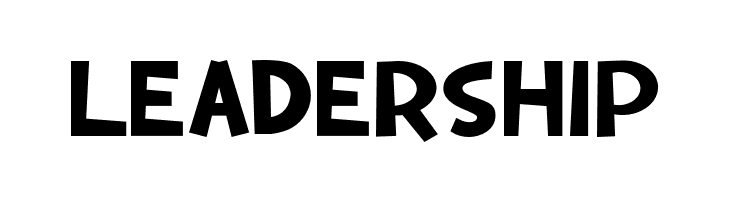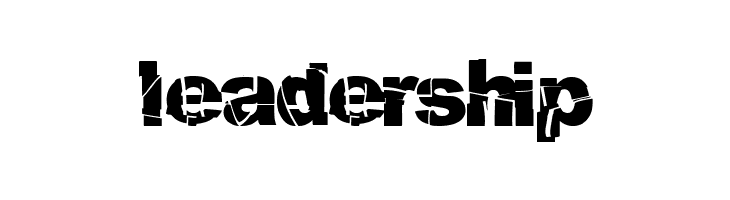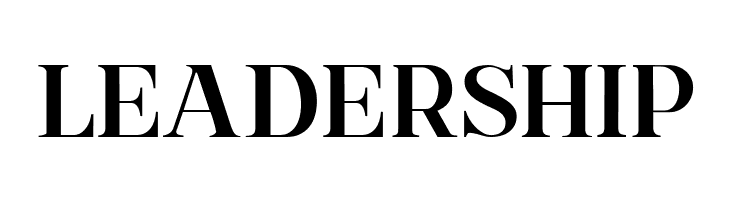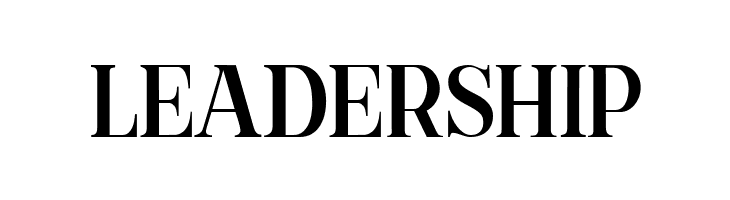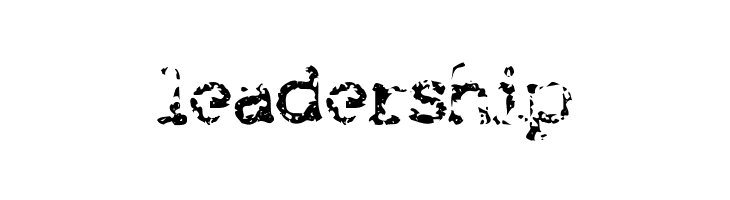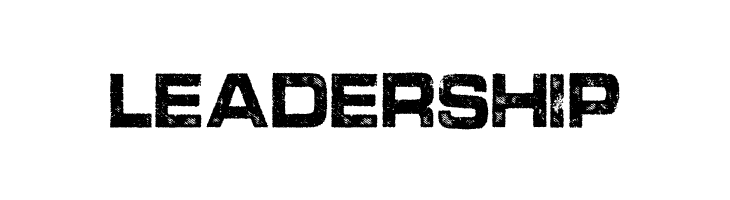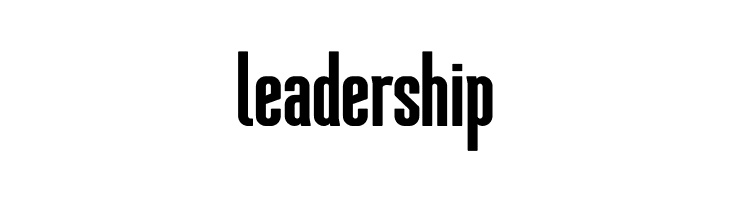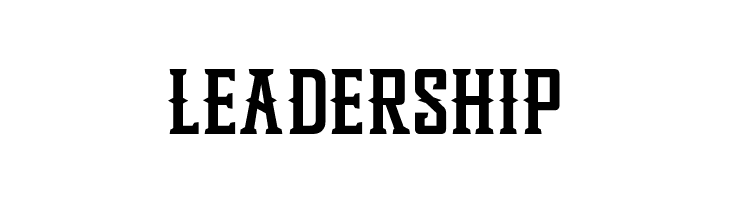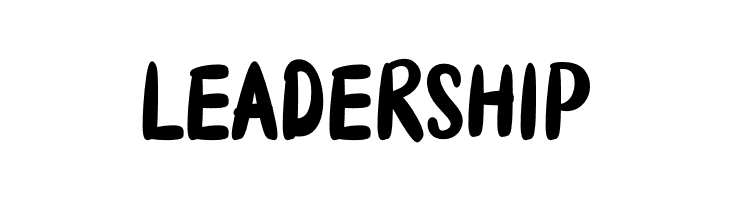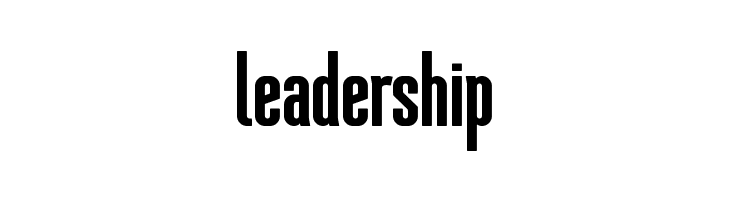
( Fonts by Mans Greback - www.mansgreback.com - Personal-use only. For commercial use please contact owner. ) A playful, handwritten font with rounded, consistent strokes and a casual vibe. Download 123 Downloads@WebFont
( Fonts by Asd Studio - Ghazi Humam Fauzan - Personal-use only. For commercial use please contact owner. ) An elegant script font with intricate swashes and a classic calligraphic style. Download 119 Downloads@WebFont
( Fonts by Vladimir Nikolic - www.creativefabrica.com/designer/vladimirnikolic/ - Personal-use only. For commercial use please contact owner. ) A bold, high-contrast serif font with dramatic strokes. Download 488 Downloads@WebFont
( Fonts by Vladimir Nikolic - www.creativefabrica.com/designer/vladimirnikolic/ - Personal-use only. For commercial use please contact owner. ) A classic serif font with medium contrast and elegant strokes. Download 304 Downloads@WebFont
( Fonts by Jonathan S. Harris - www.tattoowoo.com. Personal-use only. For commercial use please contact owner. ) A bold, distressed font with a grunge aesthetic and irregular edges. Download 109 Downloads@WebFont
( Fonts by EkoZero7 - Personal-use only. For commercial use please contact owner. ) A bold, angular serif font with a gothic influence and high contrast. Download 448 Downloads@WebFont
( Fonts by fontsandfashion - Personal-use only. For commercial use please contact owner. ) Bold, classic serif font with strong, uniform strokes and tight spacing. Download 42 Downloads@WebFont
( Fonts by Billy Argel - Personal-use only. For commercial use please contact owner. ) A bold, distressed font with a grunge, vintage style. Download 54 Downloads@WebFont
( Fonts by Fontry - M.G. Adkins - Personal-use only. For commercial use please contact owner. ) A bold, jagged font with a broken glass effect, ideal for impactful designs. Download 54 Downloads@WebFont
( Fonts by Fontry - M.G. Adkins - Personal-use only. For commercial use please contact owner. ) A bold, outlined font with a dynamic, edgy style. Download 45 Downloads@WebFont
( Fonts by Fontry - M.G. Adkins - Personal-use only. For commercial use please contact owner. ) A bold, three-dimensional font with a playful, cartoonish style. Download 42 Downloads@WebFont
( Fonts by Timo Kuilder - Personal-use only. For commercial use please contact owner. ) A bold, geometric font with a playful and decorative style. Download 142 Downloads@WebFont
( Fonts by Timo Kuilder - Personal-use only. For commercial use please contact owner. ) A bold, geometric font with sharp angles and thick strokes, perfect for striking designs. Download 158 Downloads@WebFont
( Fonts by Amin Studio - Personal-use only. For commercial use please contact owner. ) A bold, brushstroke font with a dynamic and energetic style. Download 50 Downloads@WebFont
( Fonts by Pizzadude - Jakob Fischer - Personal-use only. For commercial use please contact owner. ) A playful, bold font with a broken, puzzle-like design. Download 18 Downloads@WebFont
( Fonts by Woodcutter Manero - http://www.woodcutter.es - Personal-use only. For commercial use please contact owner. ) A bold, fragmented font with a shattered glass effect. Download 470 Downloads@WebFont
( Fonts by Kurnia Setyadi - Personal-use only. For commercial use please contact owner. ) A bold, brush-style font with a playful, hand-drawn appearance. Download 59 Downloads@WebFont
( Fonts by Manfred Klein. Free for private and charity use. Free for commercial with donation to organizations ) A bold, abstract font with geometric and fragmented letterforms. Download 138 Downloads@WebFont
( Fonts by Arterfak Project - Ahmad Ramzi Fahruddin - Personal-use only. For commercial use please contact owner. ) A bold, energetic brush script font with a hand-painted appearance. Download 26 Downloads@WebFont
( Fonts by a Max Infeld - XEROGRAPHER FONTS - xerographer.blogspot.com . Personal-use only. For commercial use please contact owner. ) A dynamic, expressive handwritten font with fluid, cursive strokes. Download 187 Downloads@WebFont
( Fonts by Manfred Klein. Free for private and charity use. Free for commercial with donation to organizations ) A decorative, hand-drawn font with a gothic flair and flowing, cursive-like characters. Download 110 Downloads@WebFont
( Fonts by Manfred Klein. Free for private and charity use. Free for commercial with donation to organizations ) A bold, decorative font with a hand-drawn, medieval-inspired style. Download 125 Downloads@WebFont
( Fonts by Manfred Klein. Free for private and charity use. Free for commercial with donation to organizations ) A decorative, hand-drawn font with a gothic and calligraphic influence. Download 143 Downloads@WebFont
( Fonts by Wildan Suprian syah ) A bold, playful font with a quirky, hand-drawn style. Download 284 Downloads@WebFont
( Fonts by Almarkhatype - Abdul Malik Wisnu - Personal-use only. For commercial use please contact owner. ) A bold, condensed font with a modern and impactful style. Download 224 Downloads@WebFont
( Fonts by Almarkhatype - Abdul Malik Wisnu - Personal-use only. For commercial use please contact owner. ) A bold, modern font with tall, narrow characters and consistent stroke width. Download 23 Downloads@WebFont